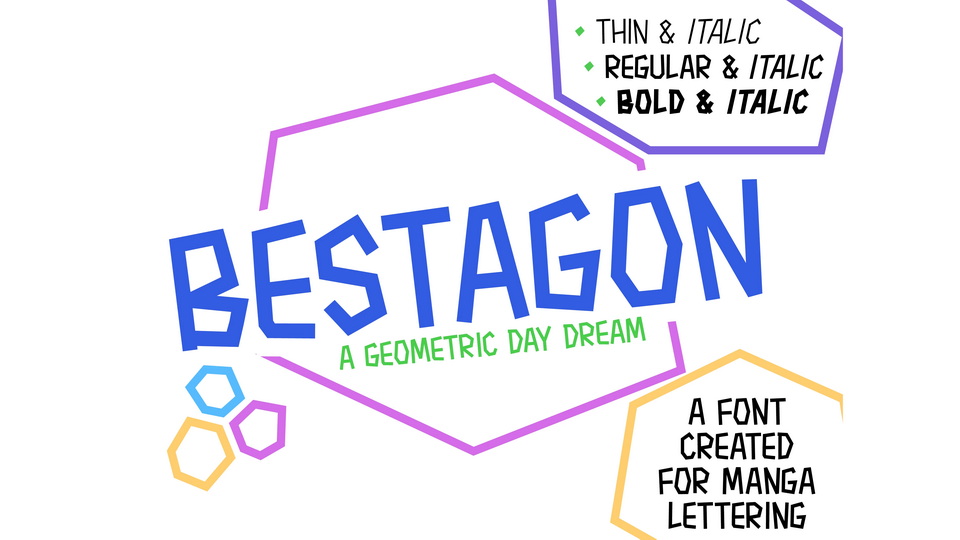
Download Bestagon font, a geometric typeface with four styles that has a wide range of glyphs designed for manga lettering, and it would be great in any comic book.
Designer: Sara Linsley